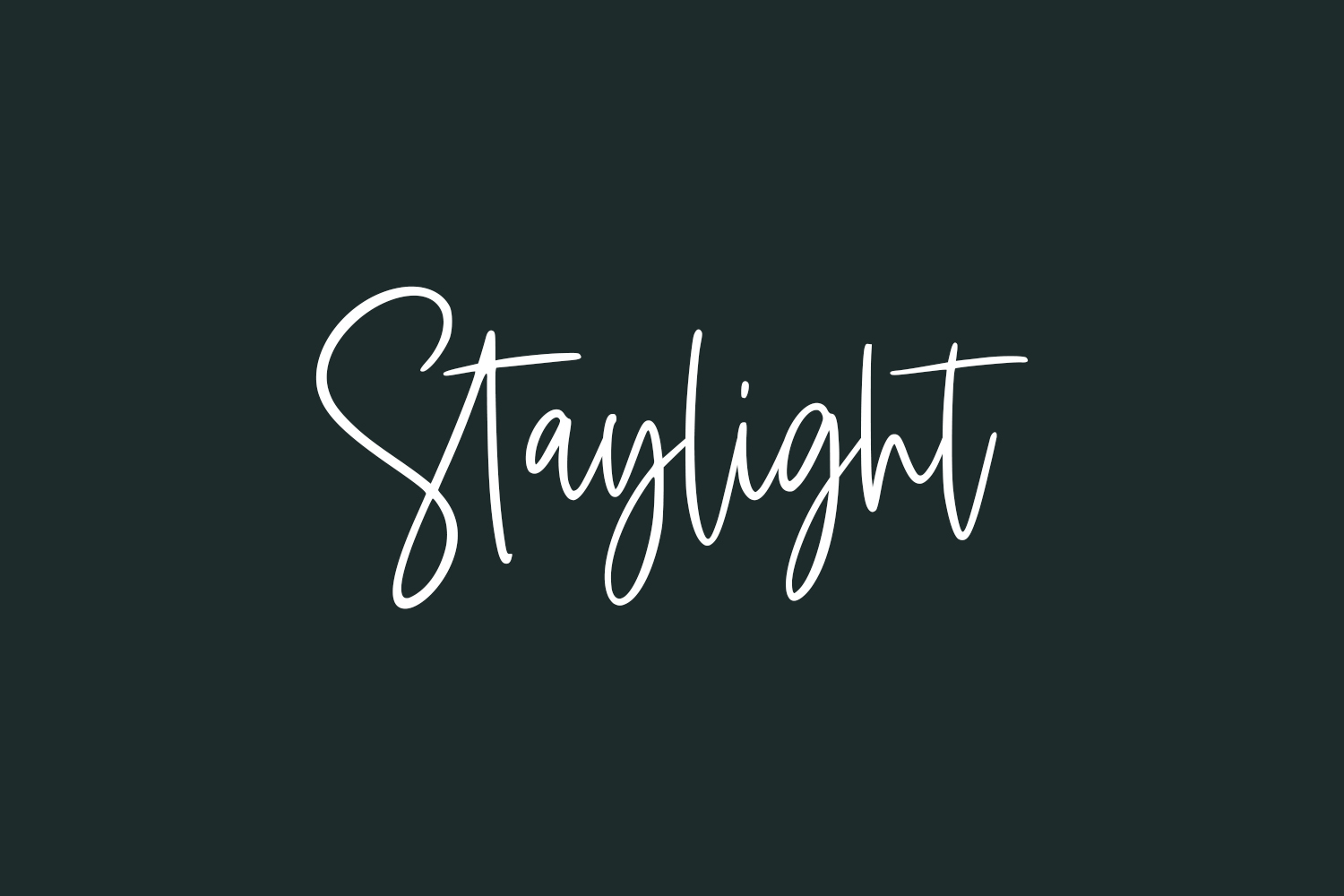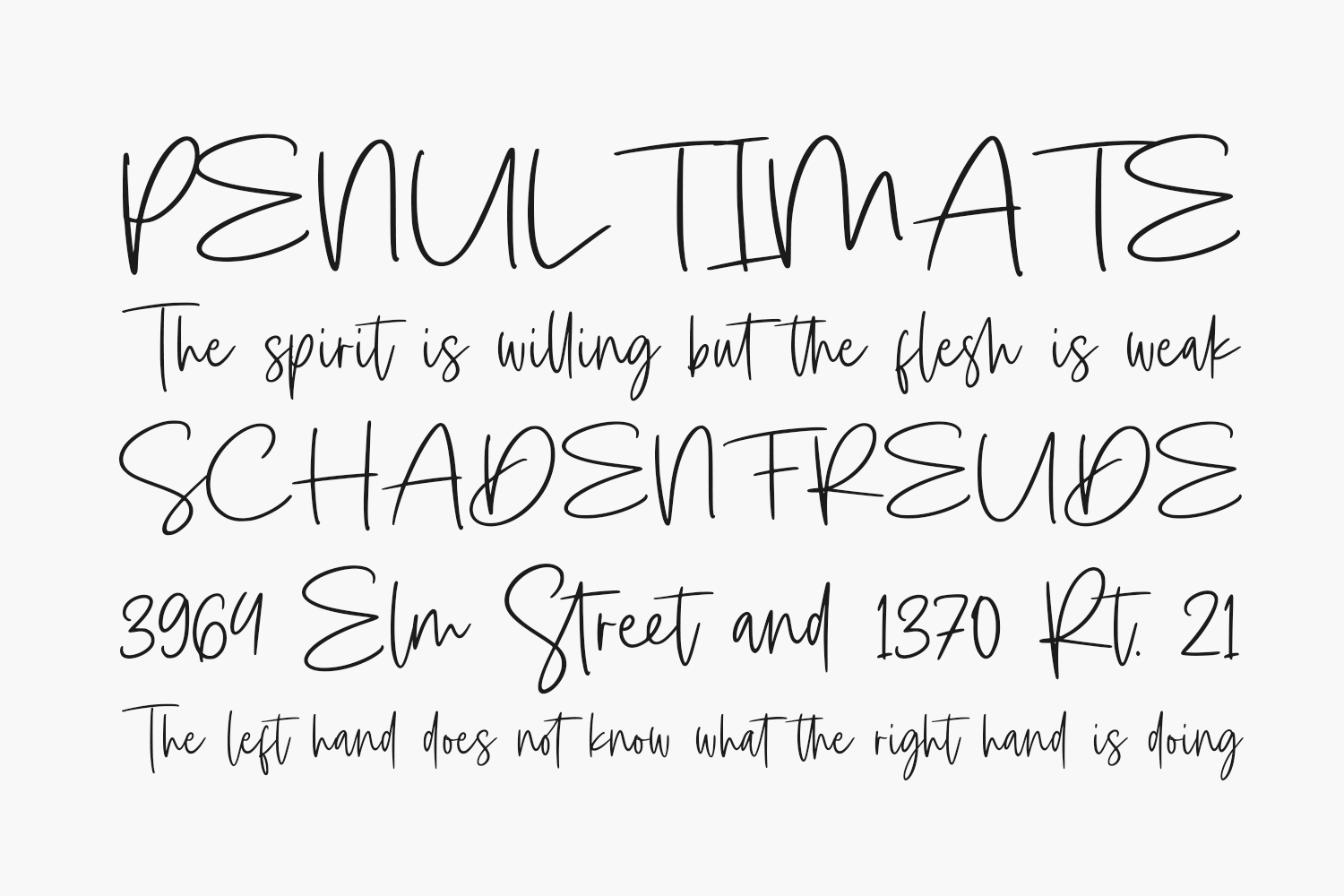
Introducing Staylight Free Font – an exquisite signature-style script font that exudes elegance, class, and a touch of luxury. This carefully crafted font replicates the beauty of natural handwriting, ensuring a seamless and authentic look.
Staylight proves to be an ideal choice for a wide range of creative projects, including branding ventures, mesmerizing logos, captivating wedding designs, engaging social media posts, eye-catching advertisements, captivating product packaging, innovative product designs, alluring labels, stunning photography overlays, subtle watermarks, inviting invitations, stylish stationery, and any project that demands a touch of sophistication.
With Staylight at your disposal, your designs will radiate charm and allure, captivating your audience effortlessly. Embrace the finesse of this font and elevate your creative endeavors to a whole new level. Staylight Free Font is free for personal use only. Please purchase the full version for commercial use.